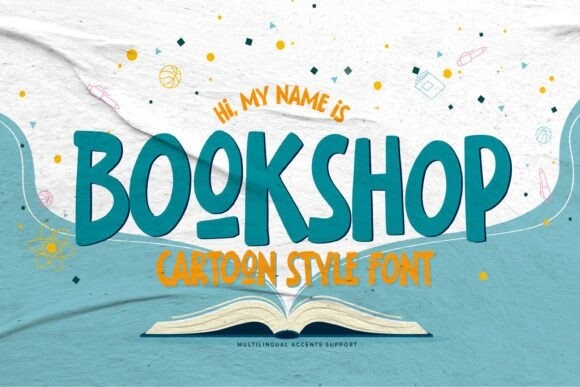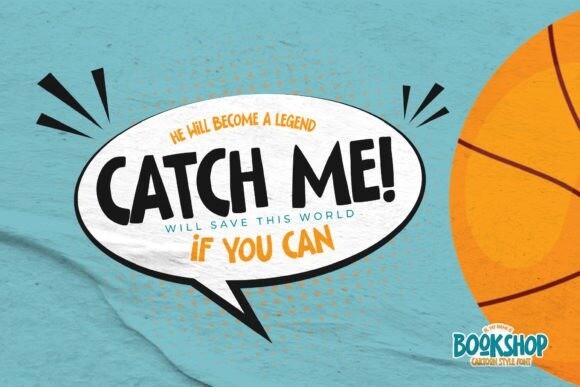
Bookshop Font
Bookshop Font is a display font that is fun. This font is suited for kids or school themes. Whether you’re using it for crafting, playful restaurant menus, digital designing, presentations, or greeting card making, it’s perfect! And It can easily be matched to an incredibly large set of projects, so add it to your creative ideas and notice how it makes them stand out!